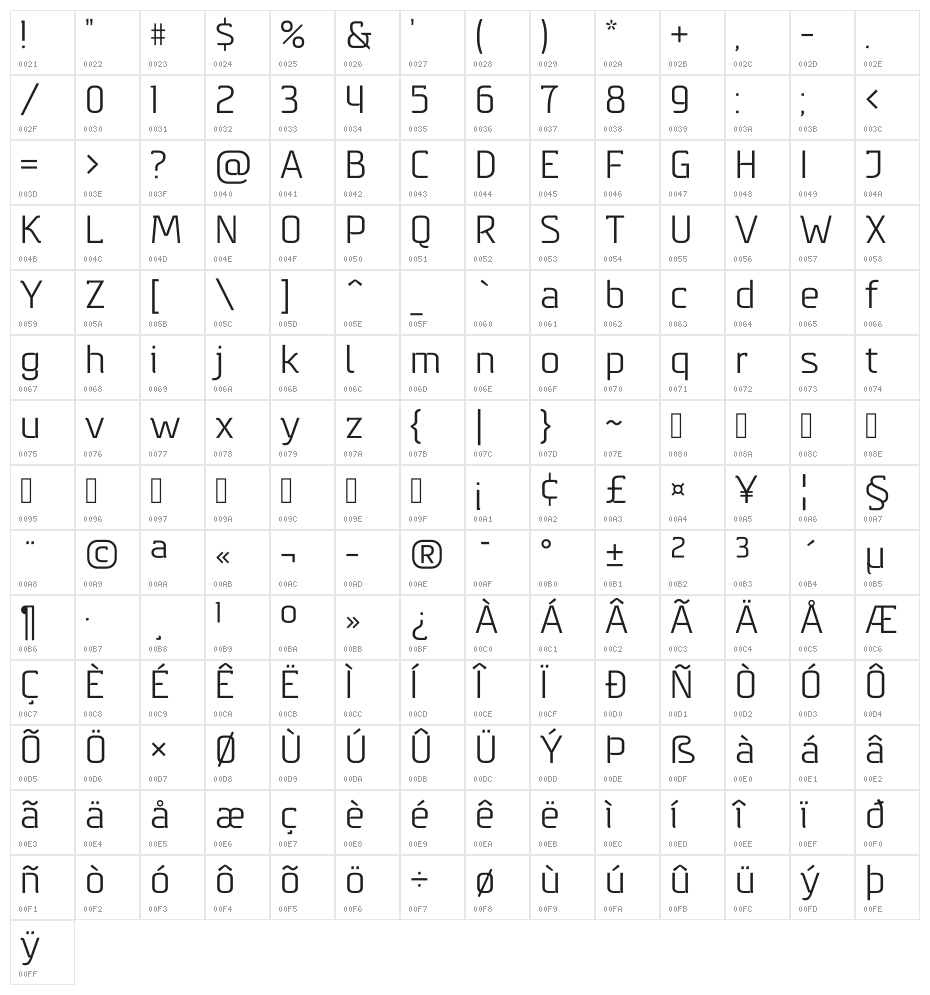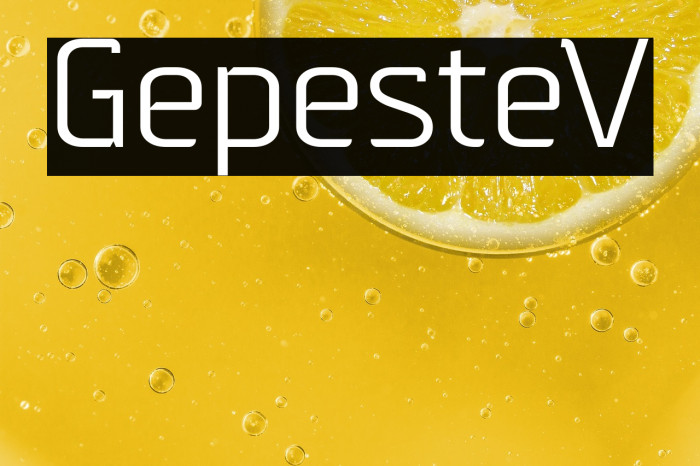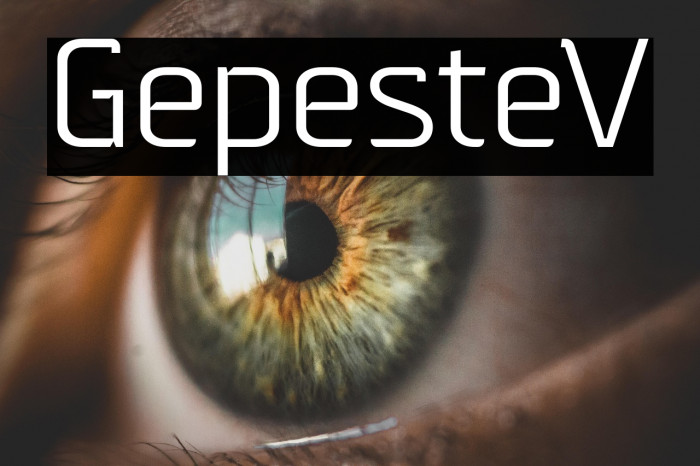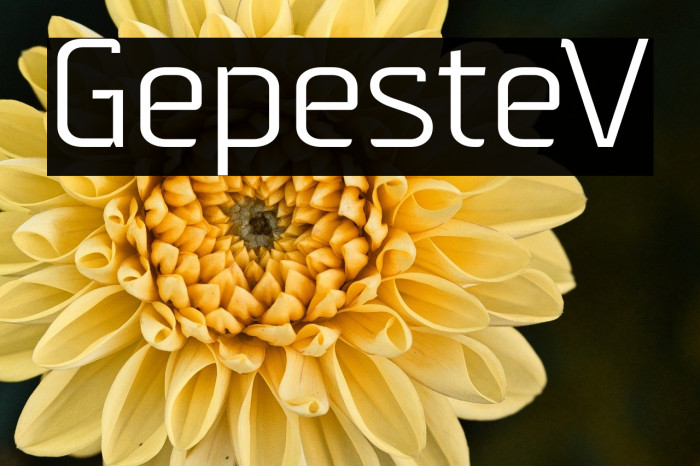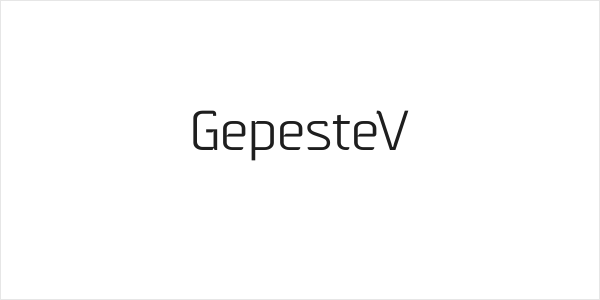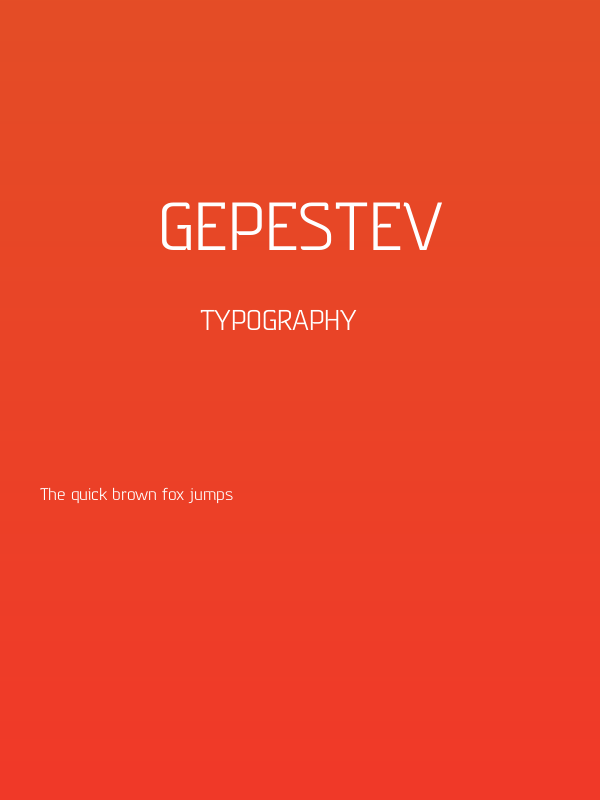
GepesteV Font
GepesteV Description
This font features a modern, geometric design with clean lines and a structured appearance. The characters are uniform in width, giving it a monospaced feel, although it is not strictly monospaced. The uppercase letters are tall and narrow, while the lowercase letters maintain a consistent height, providing a harmonious balance. The numerals are clear and legible, making them suitable for various applications. The special characters are designed with the same geometric precision, ensuring consistency across the font. Overall, this typeface exudes a contemporary and professional vibe, ideal for digital and print media.
| Proposed Projects | Ideal for tech branding, digital interfaces, modern print layouts, and minimalist design projects. |